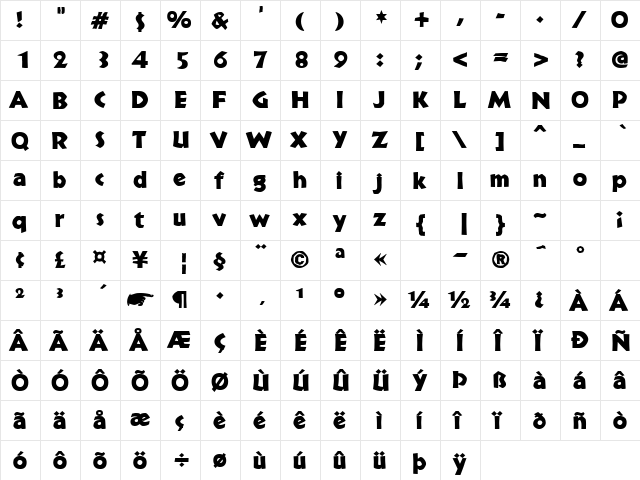
BrideOfTheMonster Regular Font Preview
BrideOfTheMonster Regular
BrideOfTheMonster Regular Font Details
Design Context for BrideOfTheMonster Typeface
BrideOfTheMonster is a composed and adaptable typeface that performs quietly and consistently across a wide range of design contexts.
Pro Tip: Pair BrideOfTheMonster with a font of contrasting weight or personality to build a more expressive typographic hierarchy.